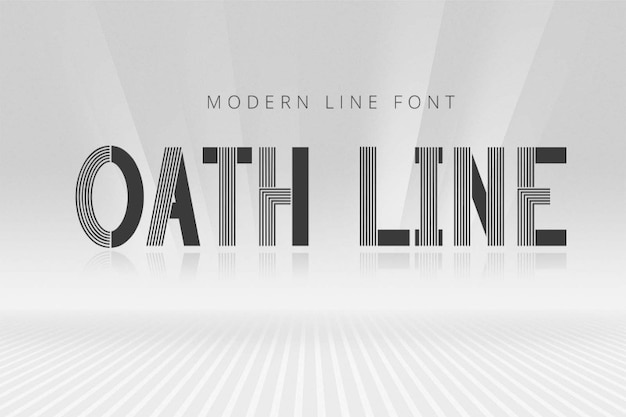
Oath Line Font
Attype Studio
Oath Line is a bold, modern font that makes a striking statement with its clean, linear design. Featuring thick lines and geometric shapes, it exudes confidence and contemporary style, perfect for branding, headlines, and impactful designs. Oath Line seamlessly blends strength with simplicity, ensuring your message stands out while maintaining a sleek, professional aesthetic.